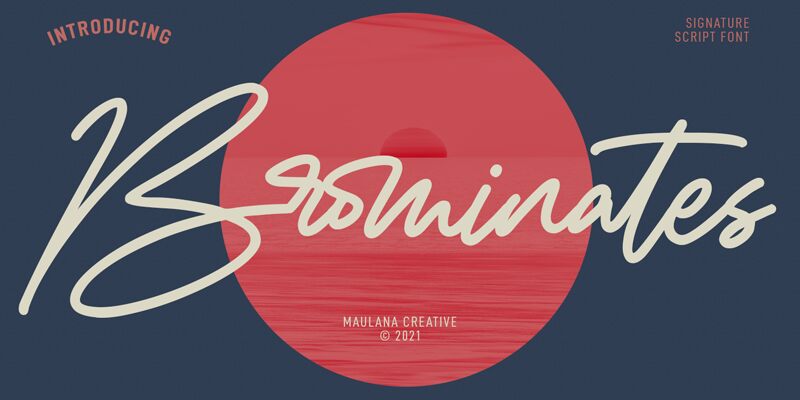
Introducing Brominates: a casual handwritten font designed by MaulanaCreative with a signature style. Use it to add a personal touch to any project - from greeting cards and invitations, to logos and branding. The light weight of the font gives it an effortless, carefree vibe.
Brominates